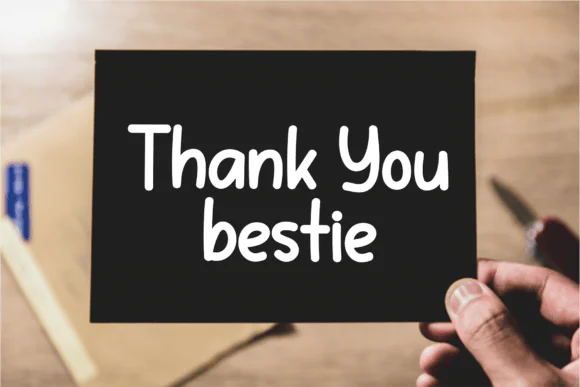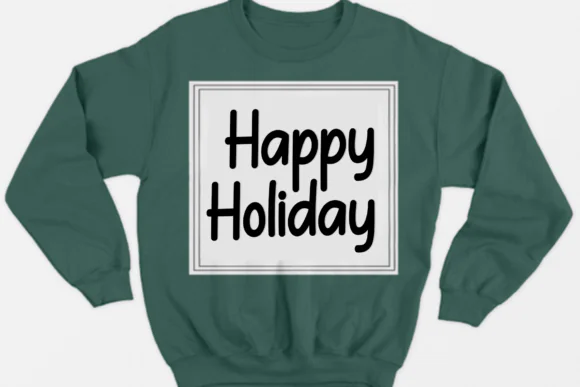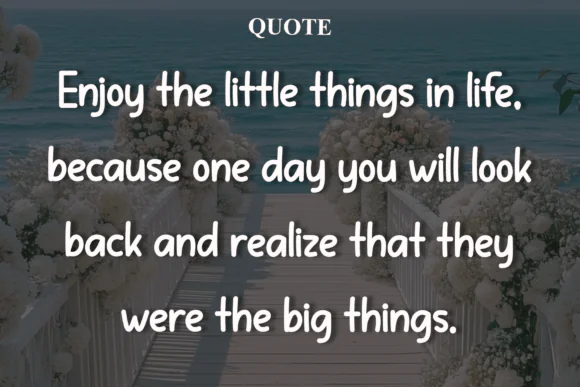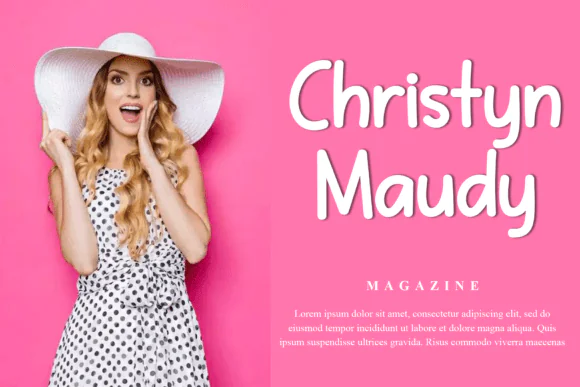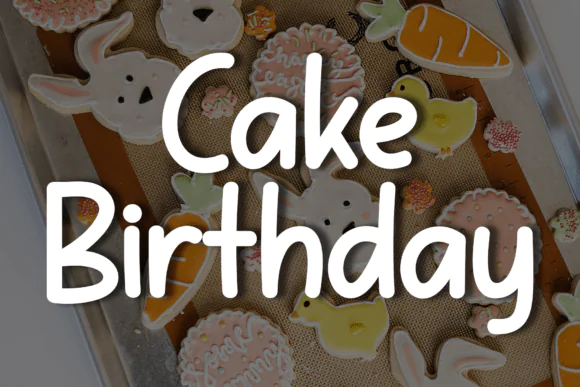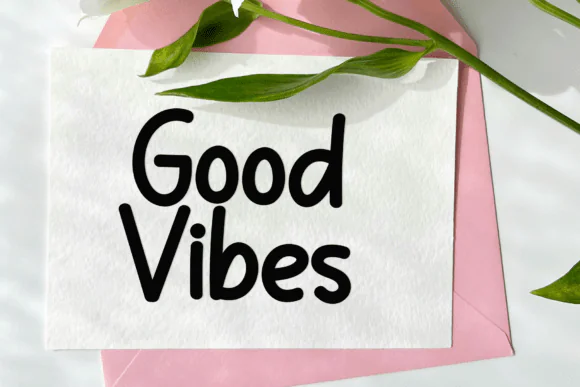
Birthday Handwriting Font | Chunky Modern Handwritten Typeface for Party Invitations, Greeting Cards, Kids Crafts, Classroom Designs, Labels & Social Media Graphics
Make every celebration feel brighter, warmer, and more joyful with Birthday Handwriting Font, a modern handwritten typeface designed with chunky strokes, rounded letterforms, and a cheerful hand-drawn personality. This font is perfect for designs that need a friendly, playful, and heartfelt look while still staying clean and easy to read.
Birthday Handwriting features medium-to-bold strokes with soft rounded shapes, giving your text an approachable and comforting style. The slight variation in letter height and alignment creates a natural handwritten feel, making your designs look more personal, casual, and full of charm.
This font is highly versatile and works beautifully for both display titles and short text designs. Use it for birthday party invitations, greeting cards, children’s crafts, classroom materials, handmade product labels, personal blogs, social media headers, stickers, printable designs, and casual branding projects.
Whether you are creating a fun birthday invite, a cute kids’ craft design, a cheerful Instagram graphic, or a handmade label, Birthday Handwriting adds a happy modern handwritten touch with maximum warmth and personality.
• Birthday party invitations
• Greeting cards
• Kids’ craft projects
• Classroom materials
• Social media headers
• Handmade product labels
• Stickers and tags
• Children’s printables
• Party banners
• Personal blogs
• Casual branding
• Scrapbooking
• Printable wall art
• Gift tags
• Celebration-themed designs